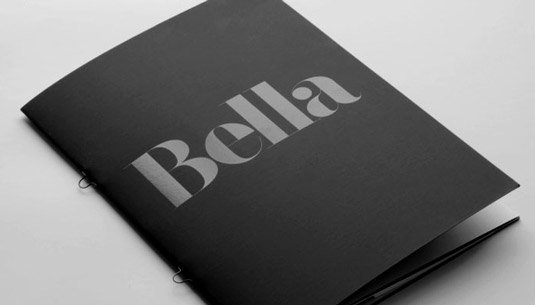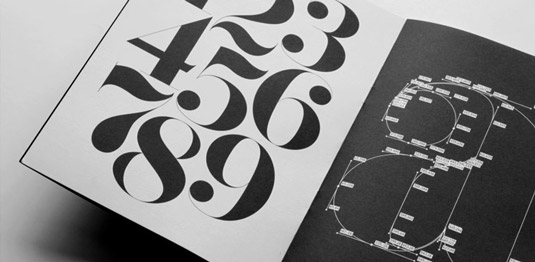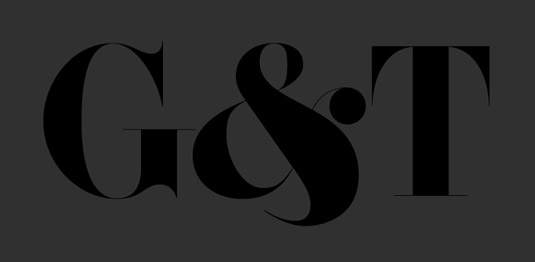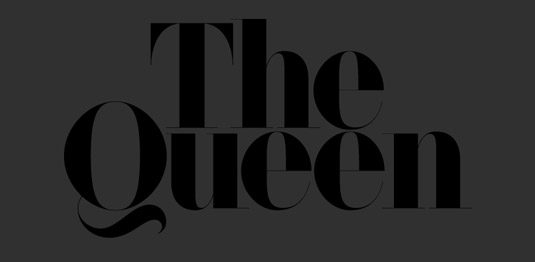
Font of the day: Bella
Bella by Rick Banks
Created exclusively for type foundry HypeForType by Rick Banks (Face37), Bella was designed in the classical French Didot style but with a contemporary geometrical twist, based on letterforms of American typographers; John Pistilli and Herb Lubalin, and Swiss typographer Jan Tschichold.